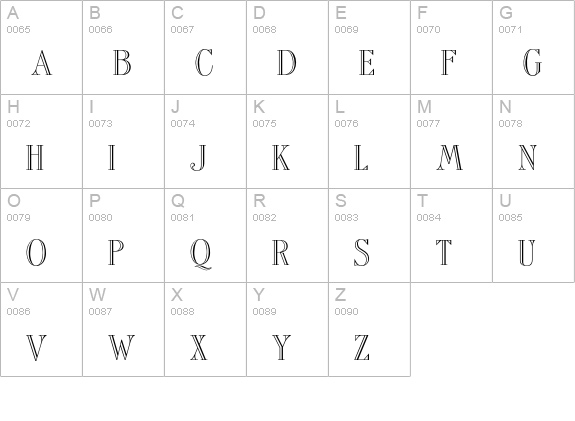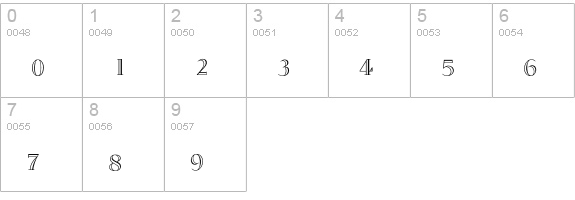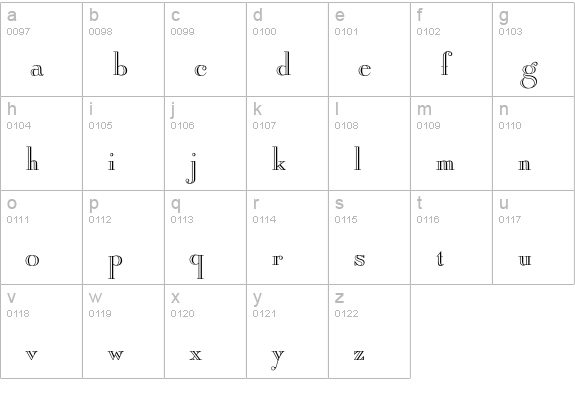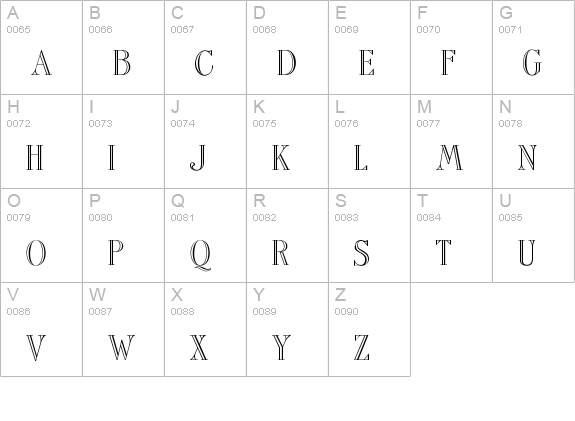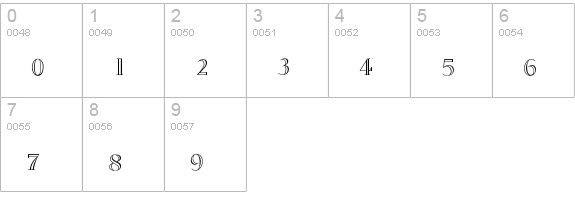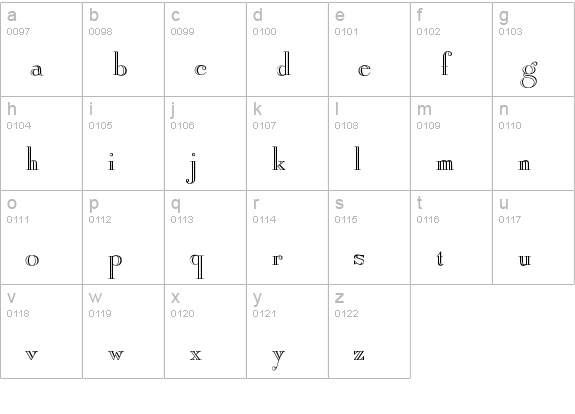
AllegroOpen is a meticulously crafted font that exudes elegance and sophistication. Its sleek lines and modern design make it perfect for a wide range of design projects, from branding to editorial layouts. The clean and timeless look of AllegroOpen adds a touch of class to any project, making it a versatile choice for designers looking to make a statement. One of the best things about AllegroOpen is that it is completely free to download. Yes, you read that right - this stunning font is freely available for download at FontsMarket.com. This means that you can add a touch of luxury to your designs without breaking the bank. Whether you are working on a personal project or a client's commission, AllegroOpen is a fantastic choice that won't cost you a penny. So why wait? Head over to FontsMarket.com today and download AllegroOpen to elevate your designs to the next level. With its stylish aesthetic and unbeatable price point, this font is sure to become a staple in your design toolkit.